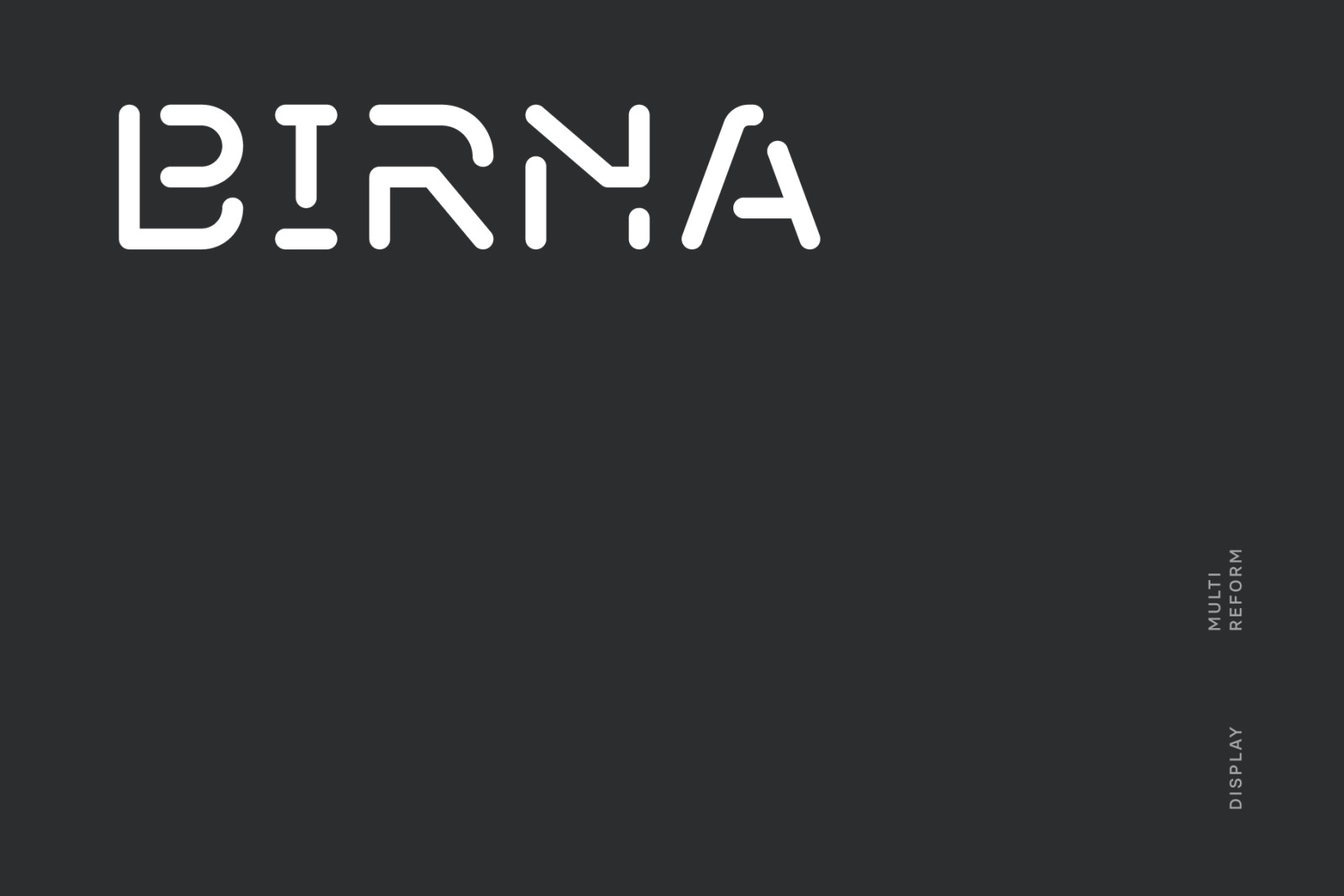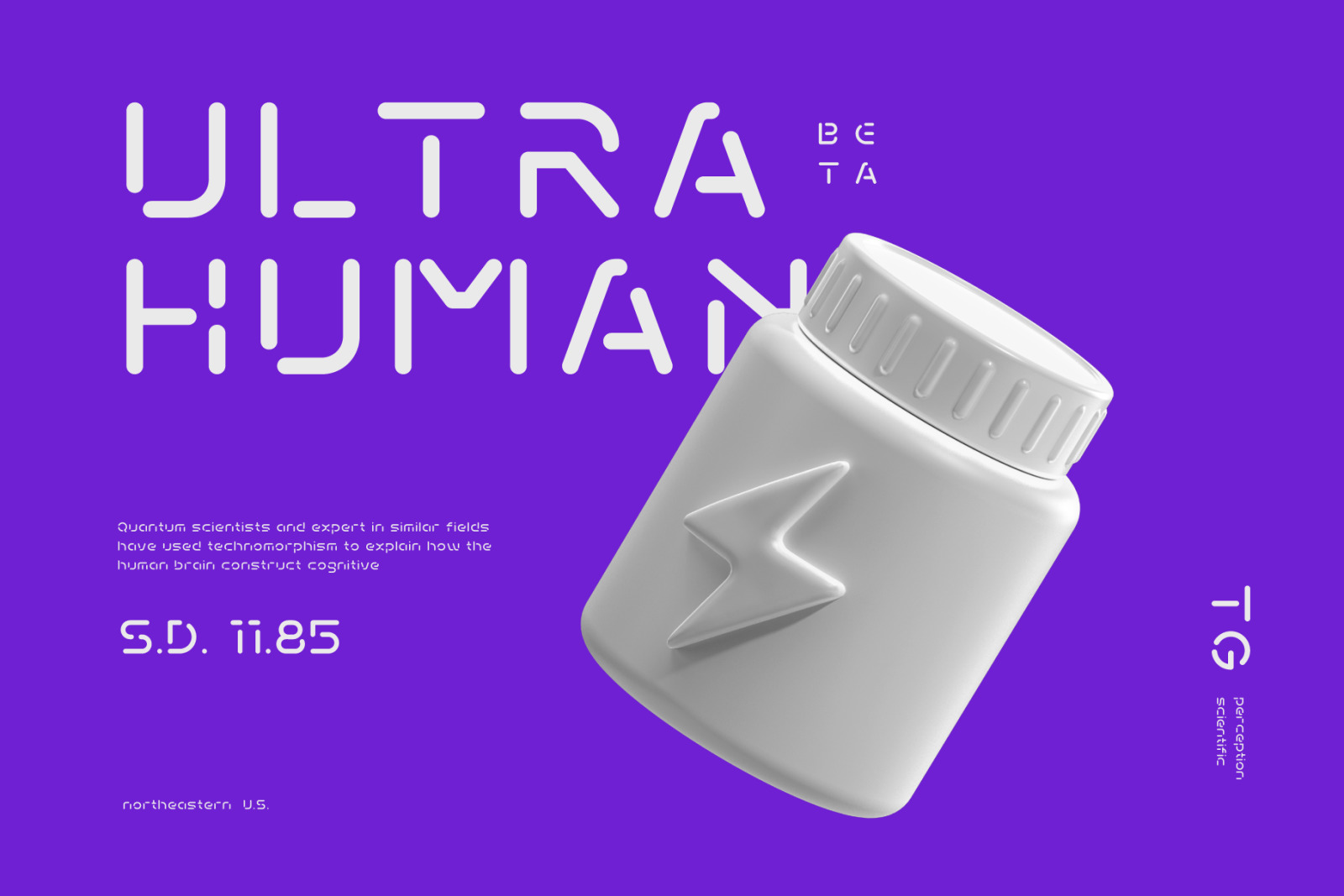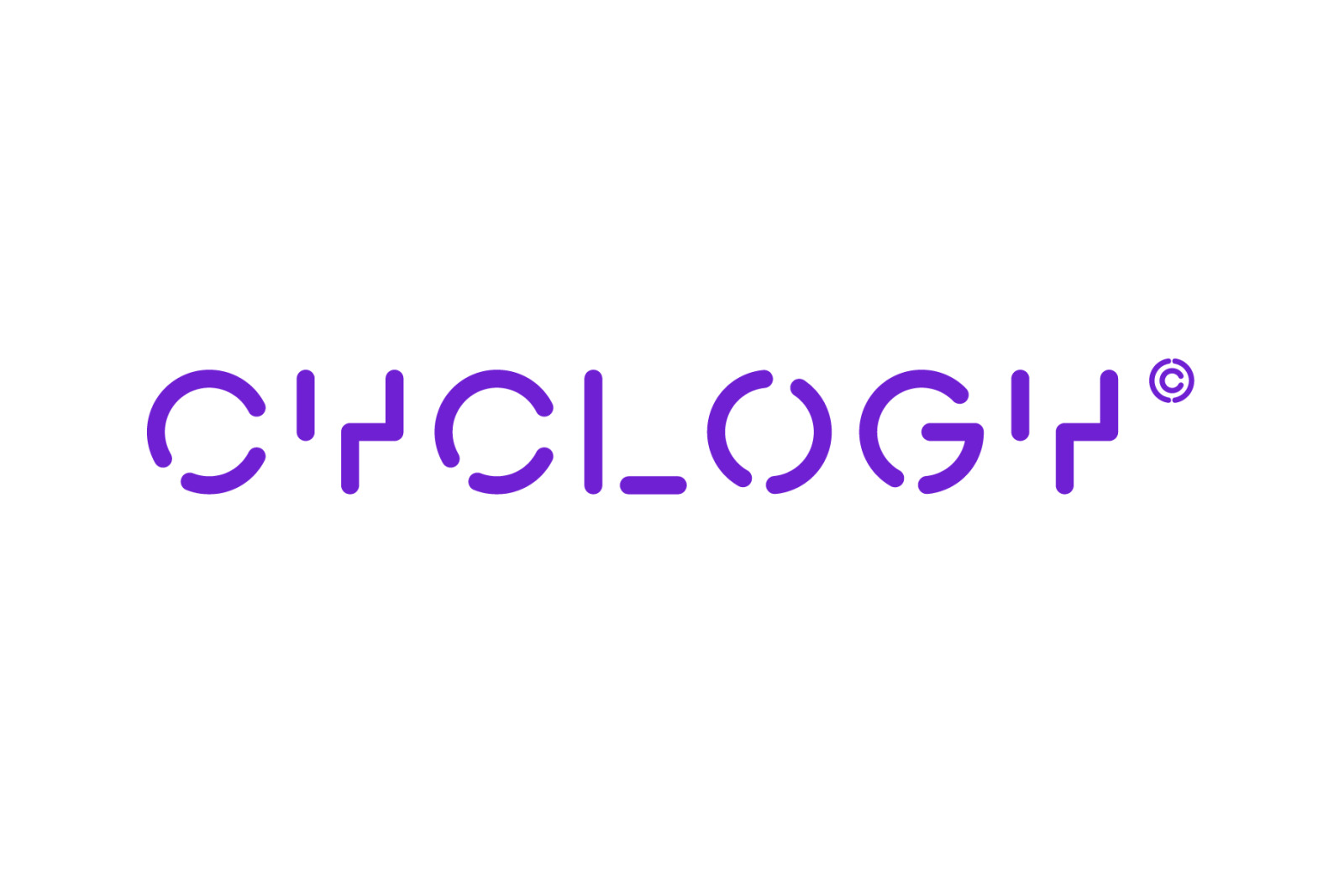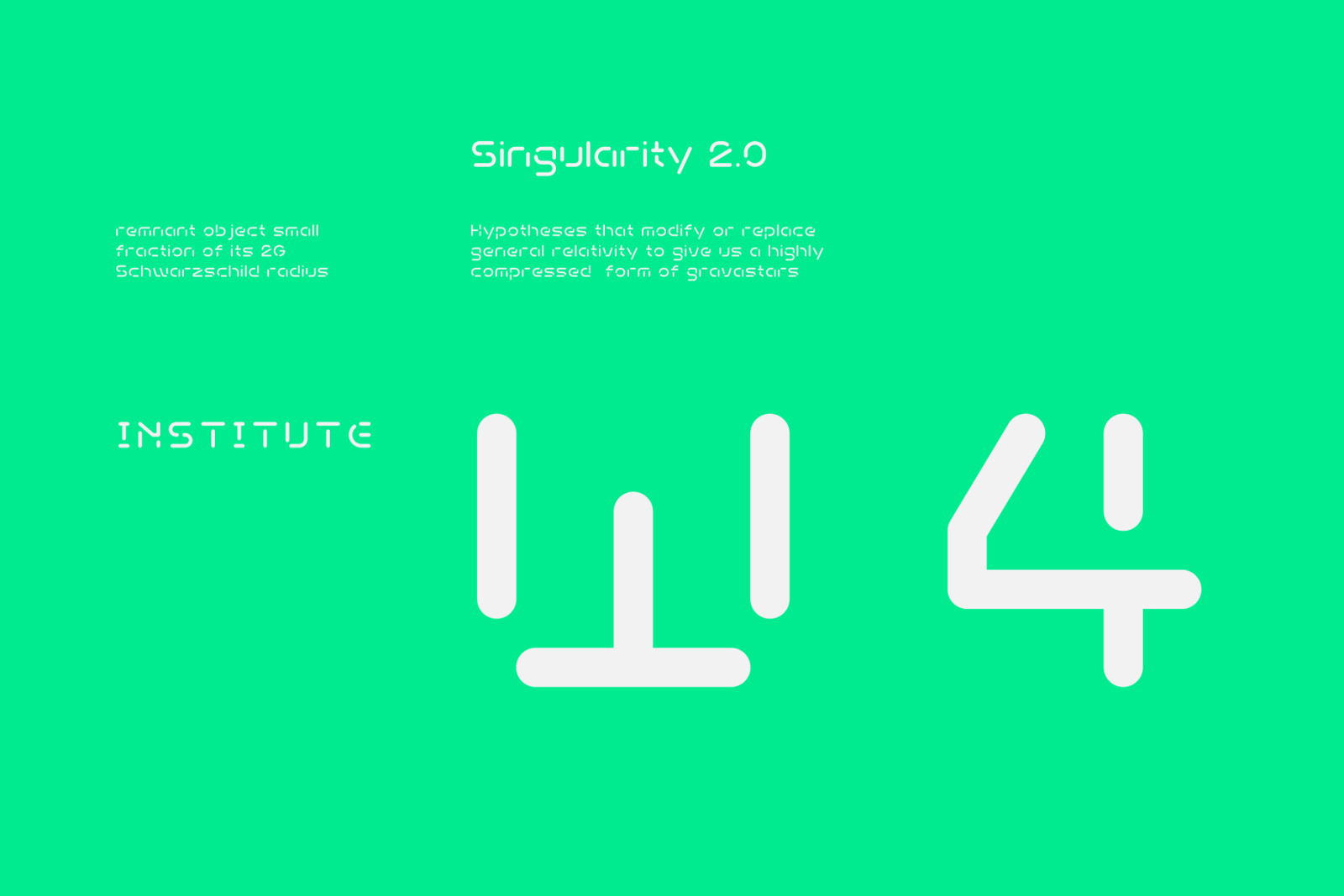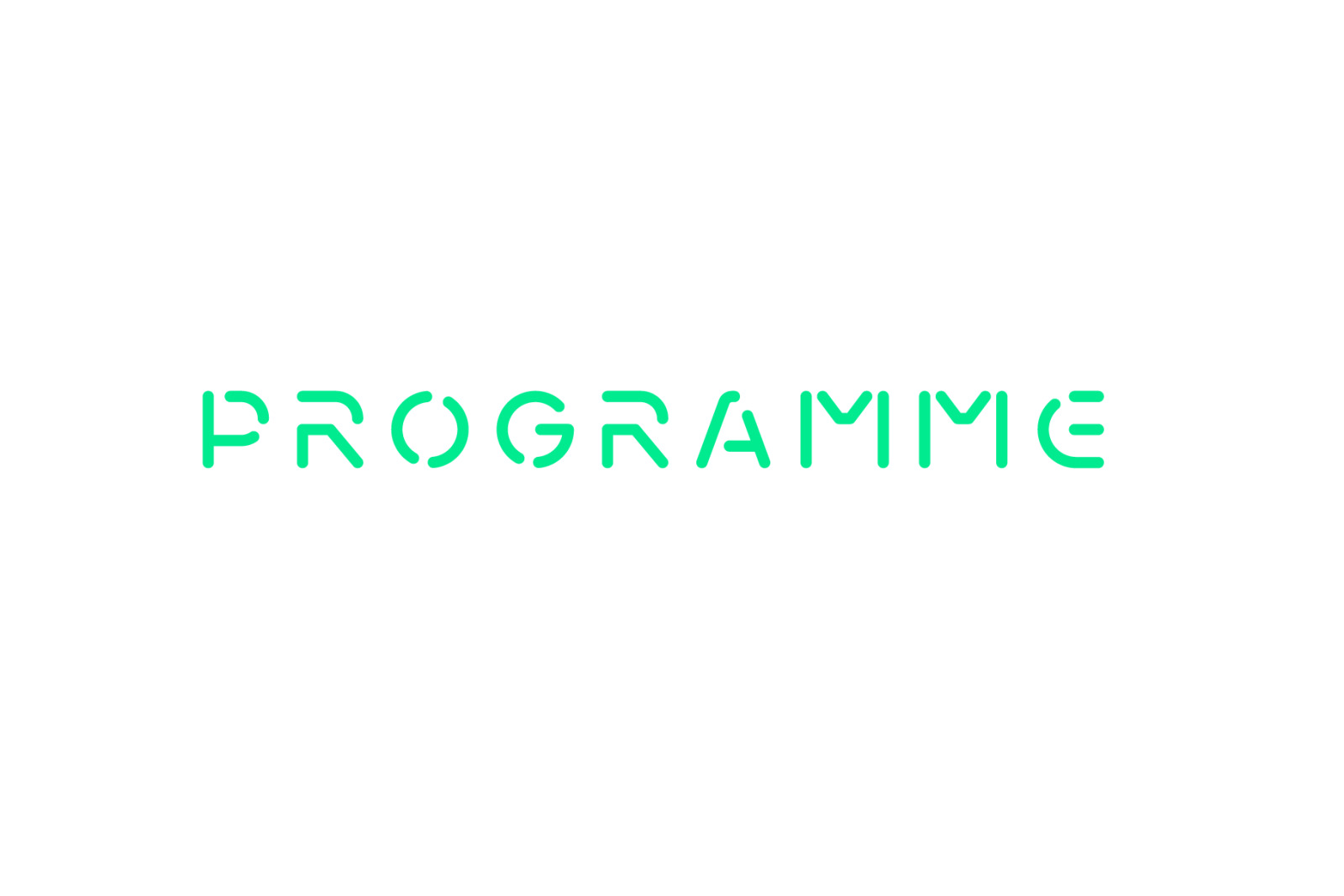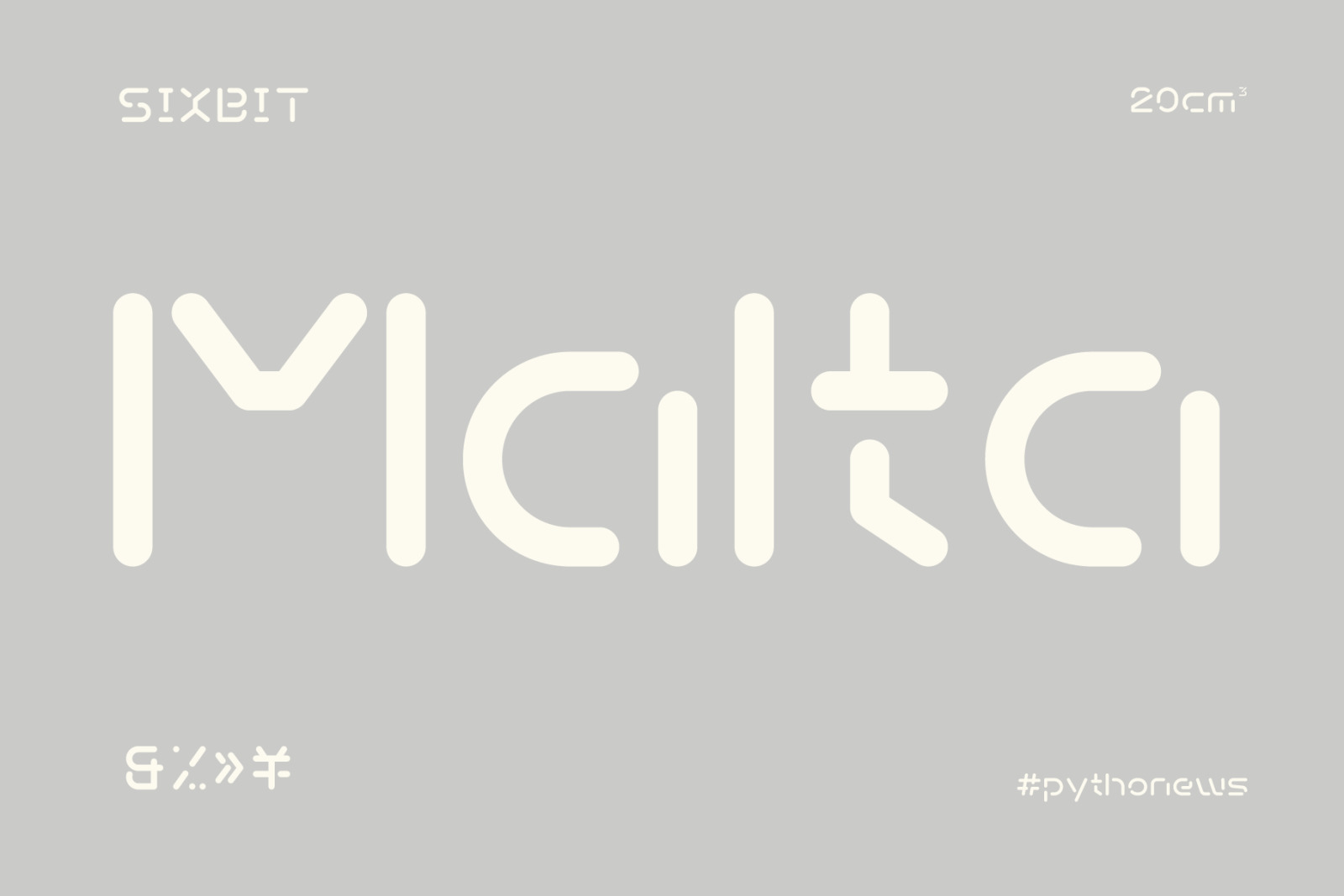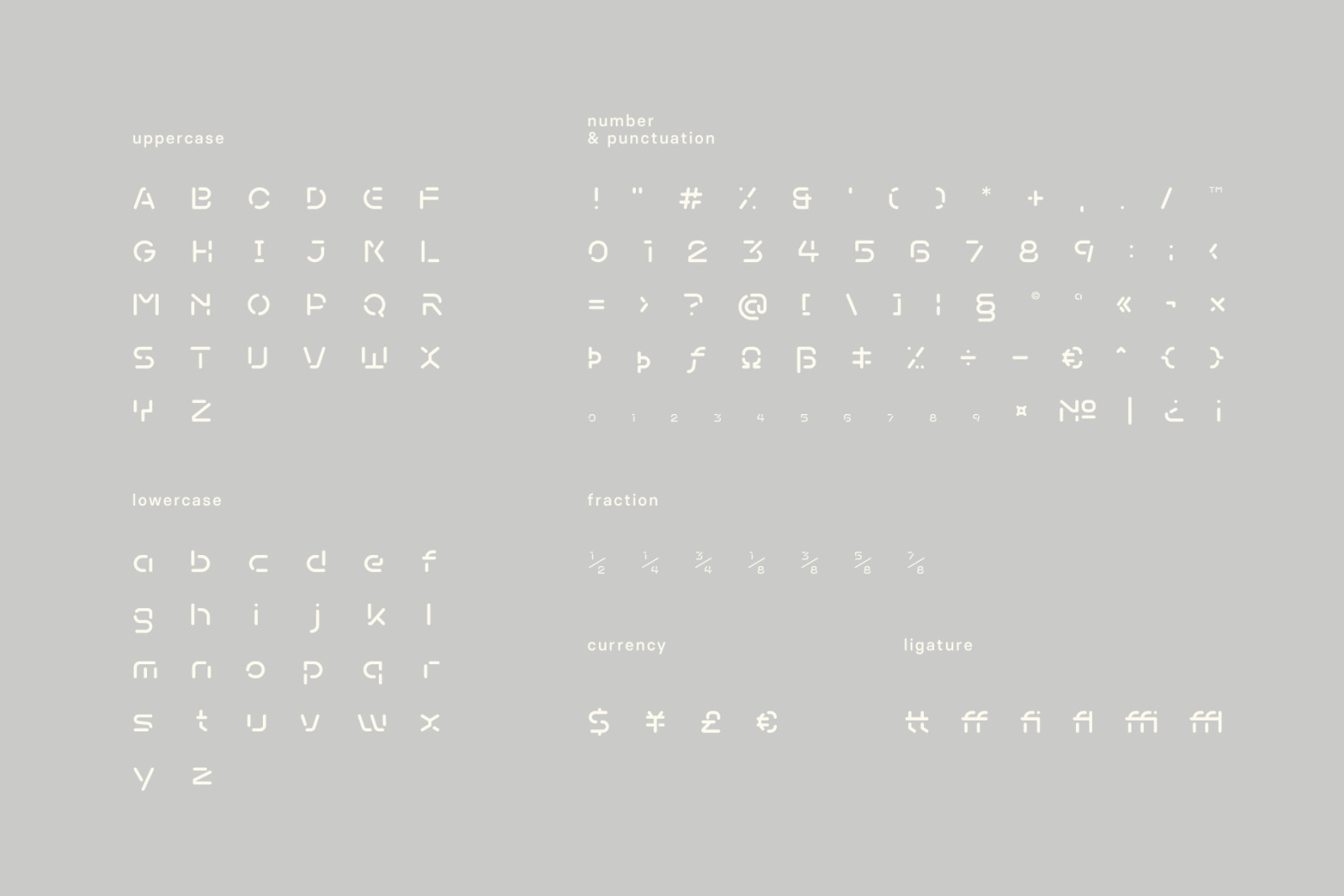
Birna Font
Birna is a multi reformatted linear sans apt for headline, editorial, branding, packaging, printed materials and typographic applications. 150+ glyphs with ligatures and fractions provided in opentype .otf and .woff format.